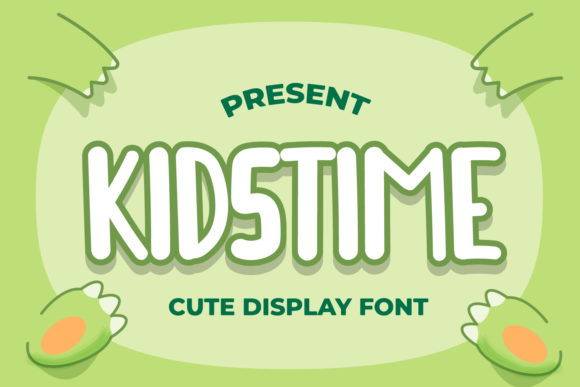
Dive into the world of whimsical creativity with Kidstime Font, the ultimate display font that unlocks a treasure chest of enchanting possibilities for your digital designs. Crafted with meticulous care by the visionary OKEVECTOR, Kidstime is not just a font; it's an invitation to embark on a magical adventure where imagination knows no bounds.
With its playful and endearing charm, Kidstime Font instantly captivates the hearts of children and adults alike. Its whimsical strokes and cheerful curves evoke a sense of wonder and delight, making it the perfect choice for projects that demand a touch of lightheartedness and joy. Say goodbye to ordinary fonts and embrace the extraordinary with Kidstime, the font that transforms your designs into captivating works of art.
Whether you're a seasoned designer or just starting your creative journey, Kidstime Font is your ultimate companion. Its easy-to-use format and intuitive design make it accessible to everyone, regardless of their skill level. Unleash your creativity and explore endless possibilities, from whimsical invitations and greeting cards to eye-catching logos and social media posts. The possibilities are as limitless as your imagination.
Kidstime Font's versatility extends beyond its enchanting appearance. Its crisp and legible structure ensures that your messages are conveyed with clarity and impact, even at smaller sizes. Let your words dance across the screen, captivating your audience with their charm and eloquence. From playful posters to educational materials, Kidstime Font guarantees a captivating reading experience that leaves a lasting impression.